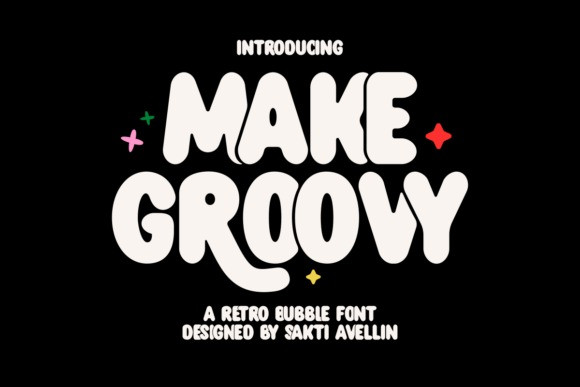
Make Groovy Font
Make Groovy Font an upbeat bubble font infused with the refreshing vitality and vibrant charm of the 70s. This fondly old-school font adds character with its bold, endearing, and effortlessly undulating shape, casting a breezy, affable, and chic aura on all designs. Accentuated by unique alternate characters, like the elongated tail on the letter ‘R’, Make Groovy offers boundless adaptability, allowing you to craft distinctive logos and personalized typography.
This lively font is the optimal choice for screen printing designs on oversized t-shirts, tote bags, hats, and hoodies, making it a sought-after solution for fashion-forward statements. It beautifully enhances snack labels, hip drinks, and teenage skincare products, rendering a fresh and trendy appeal. Its enchanting flair makes it perfect for captivating branding and logos, evolving as an unparalleled choice for creating a standout visual identity for coffee shops, kids’ or teen clothing brands, cake shops or other innovative businesses.
For Cricut/Silhouette enthusiasts, the user-friendly Make Groovy offers endless fun in crafting unique key chains, mugs, wall hangings and more. Dive into the casual charm and flexible versatility of Make Groovy, embodying the joyous spirit of the 70s in every stroke.